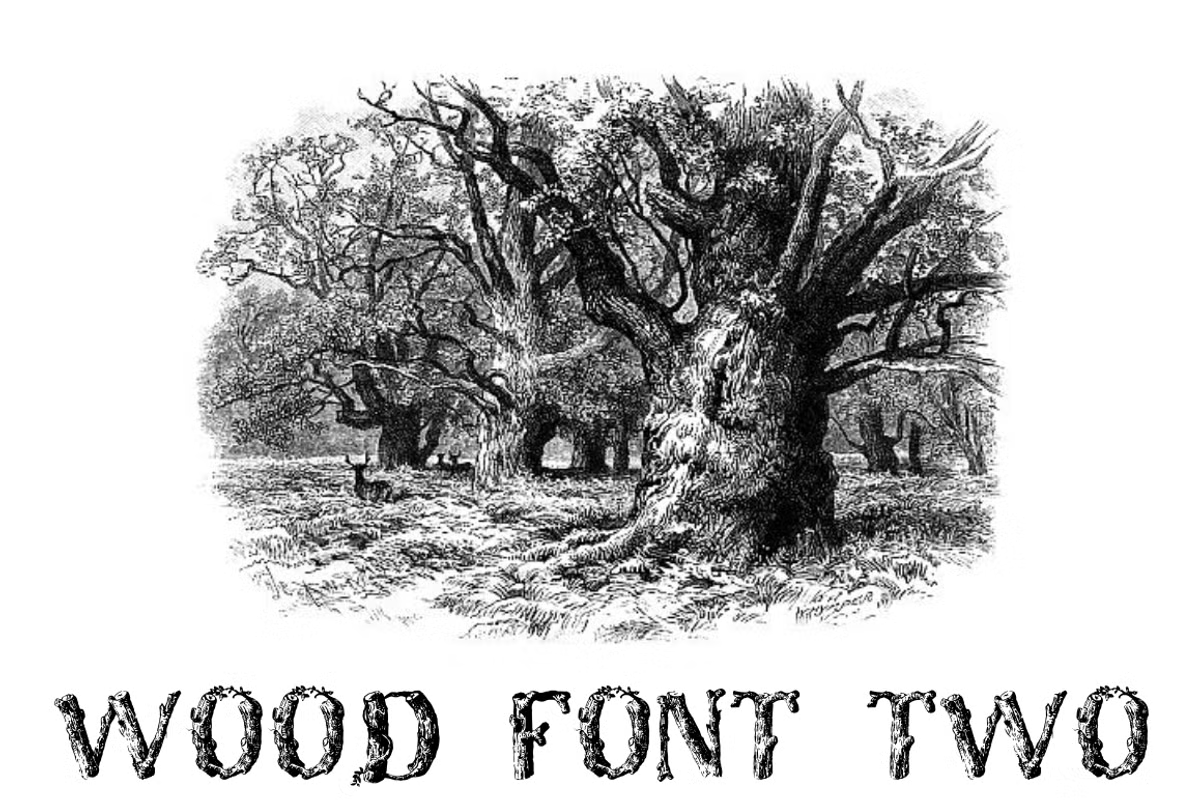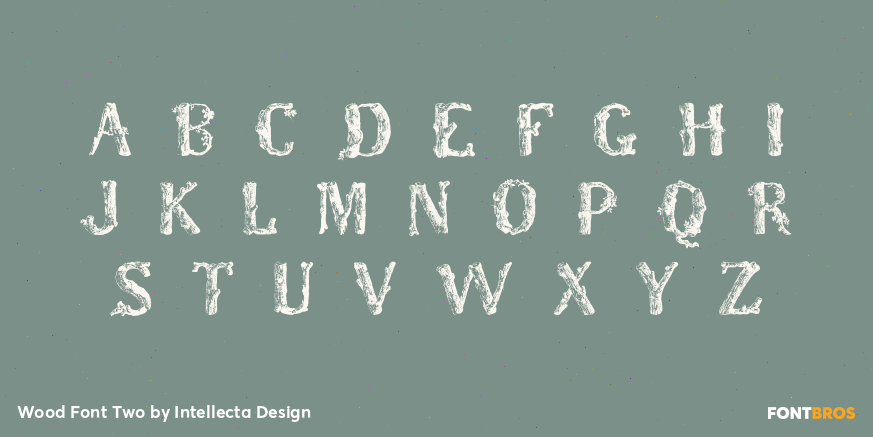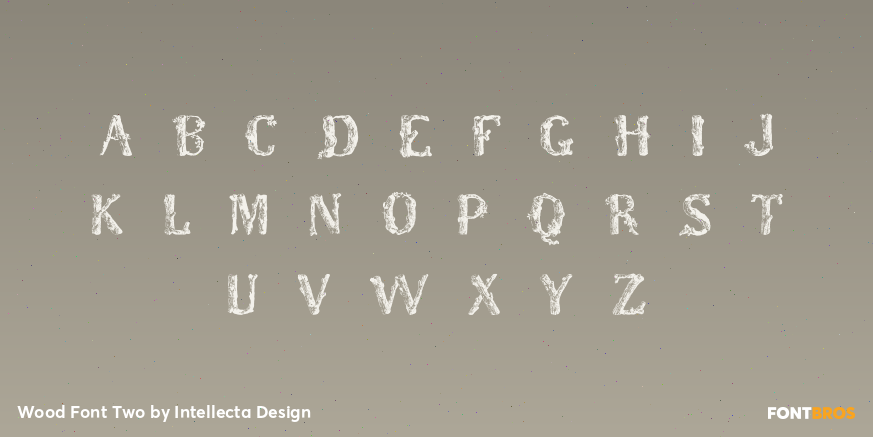
Wood Font Two
Font Family by Intellecta Design
A display and decorative font built upon the theme of wood. Great for display purposes in projects about nature and environmental topics